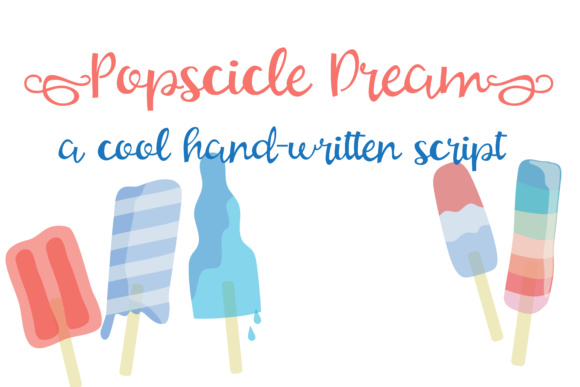
Popsicle Dream Font
Journey into a world of fun and whimsy with Popsicle Dream Font, an enchanting script family that will ignite your imagination. Bursting with vivacious charm and an irresistibly cheerful spirit, this font is the perfect companion for those seeking a touch of magic in their designs.
Popsicle Dream's delicate swashes and whimsical letterforms dance across the page, creating an atmosphere of carefree joy and lightheartedness. Its elegant curves and playful personality add a touch of whimsy to any project, whether you're crafting invitations, designing social media posts, or creating eye-catching logos.
Immerse yourself in a kaleidoscope of colors with Popsicle Dream, a font so versatile that it effortlessly adapts to your creative vision. Its charming style lends itself beautifully to a myriad of projects, from cheerful children's books to enchanting wedding invitations. Let your imagination run wild as you explore the endless possibilities that await you with this captivating font.